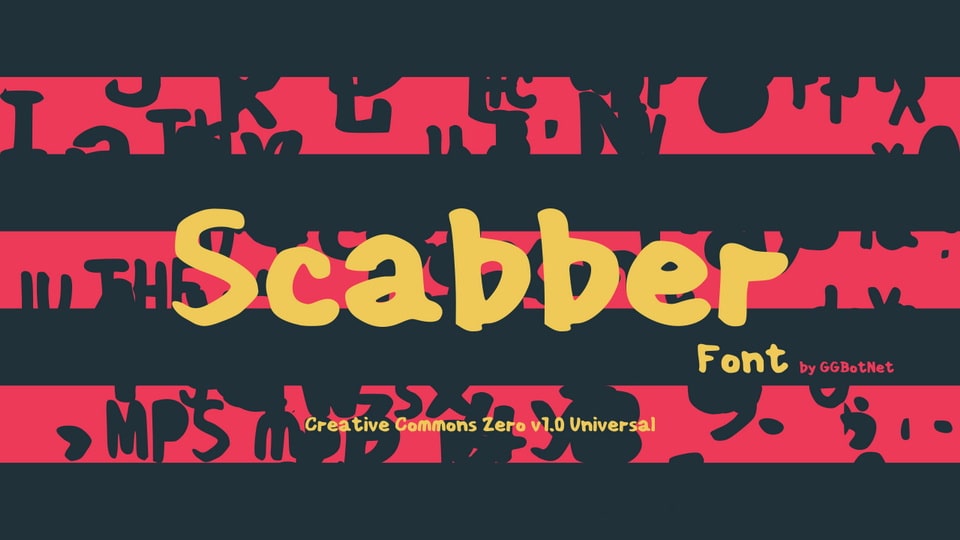
Download Scabber font, a simple and casual hand-drawn typeface designed to capture the charm of effortless lettering with its slightly imperfect lines and relaxed rhythm.